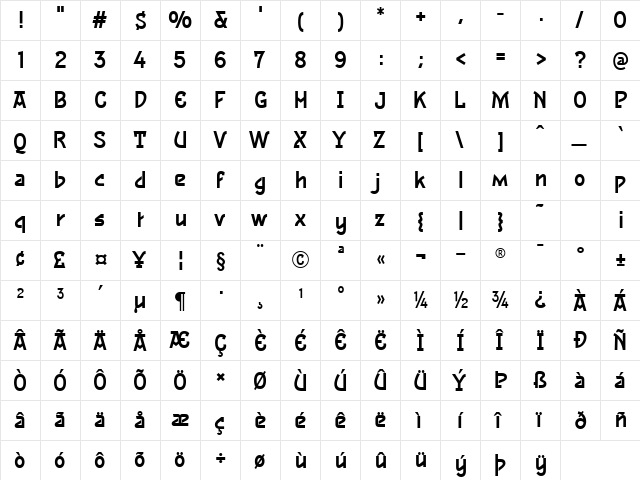
Akimbo Regular
Design Context for Akimbo Typeface
Akimbo offers clean, dependable letterforms without strong stylistic allegiance, making it a practical choice for designers who need flexibility.
Pro Tip: Pair Akimbo with a font of contrasting weight or personality to build a more expressive typographic hierarchy.